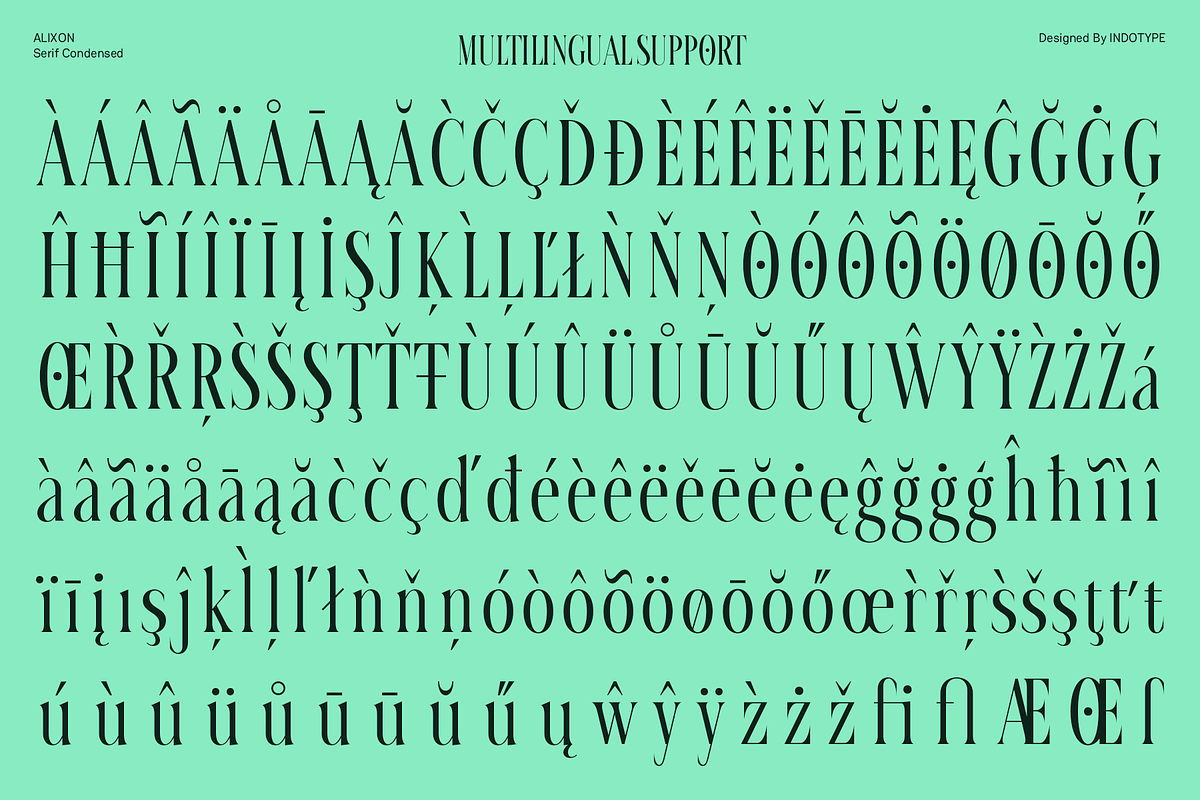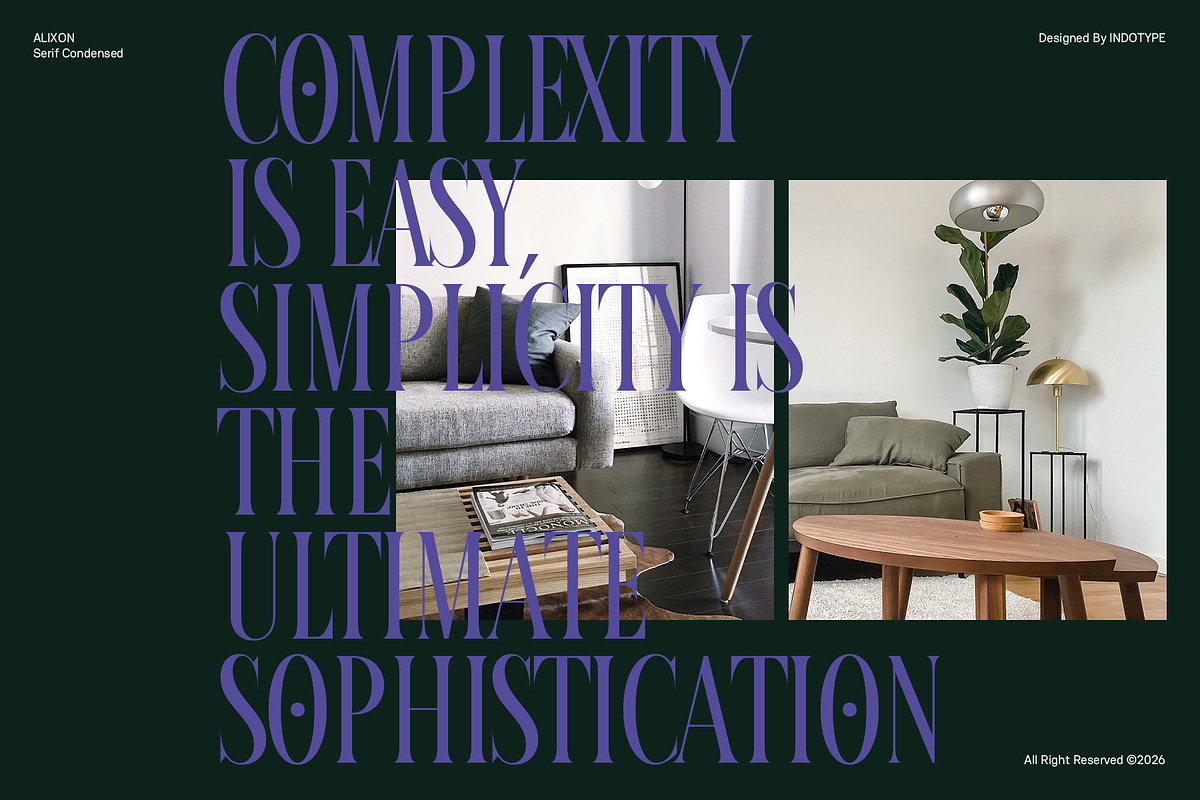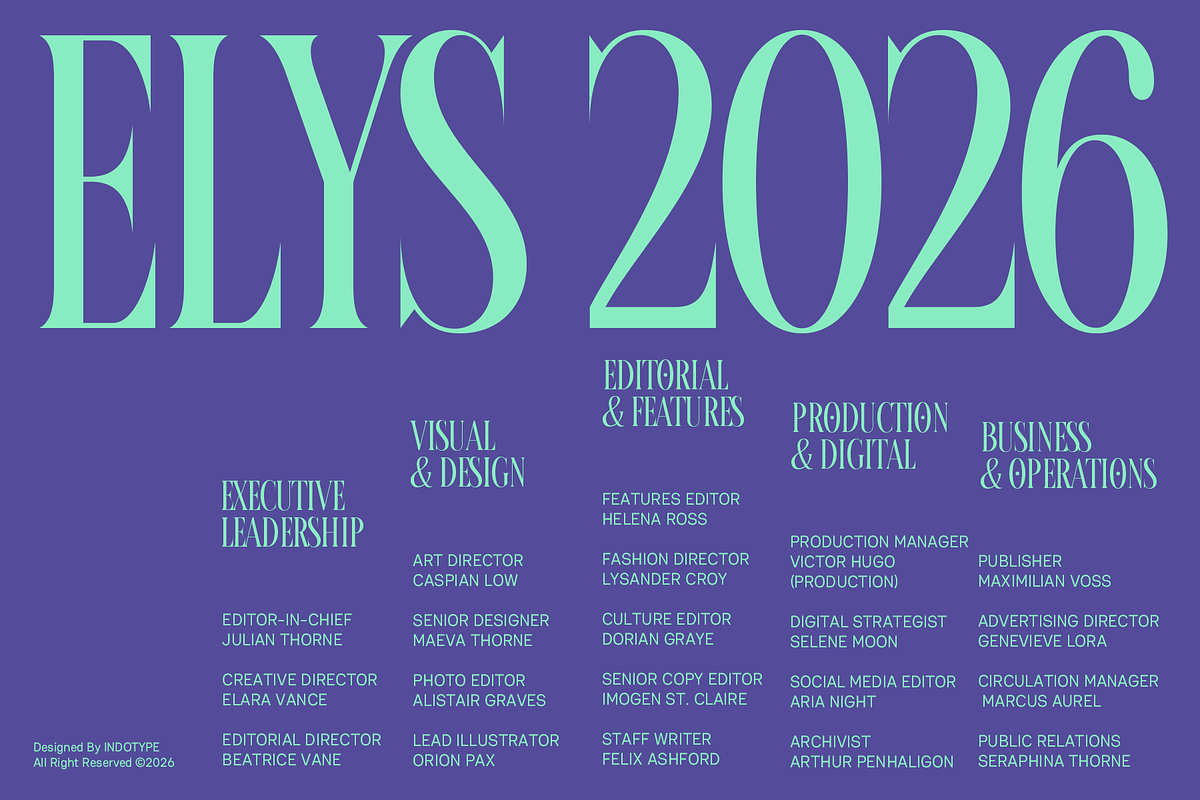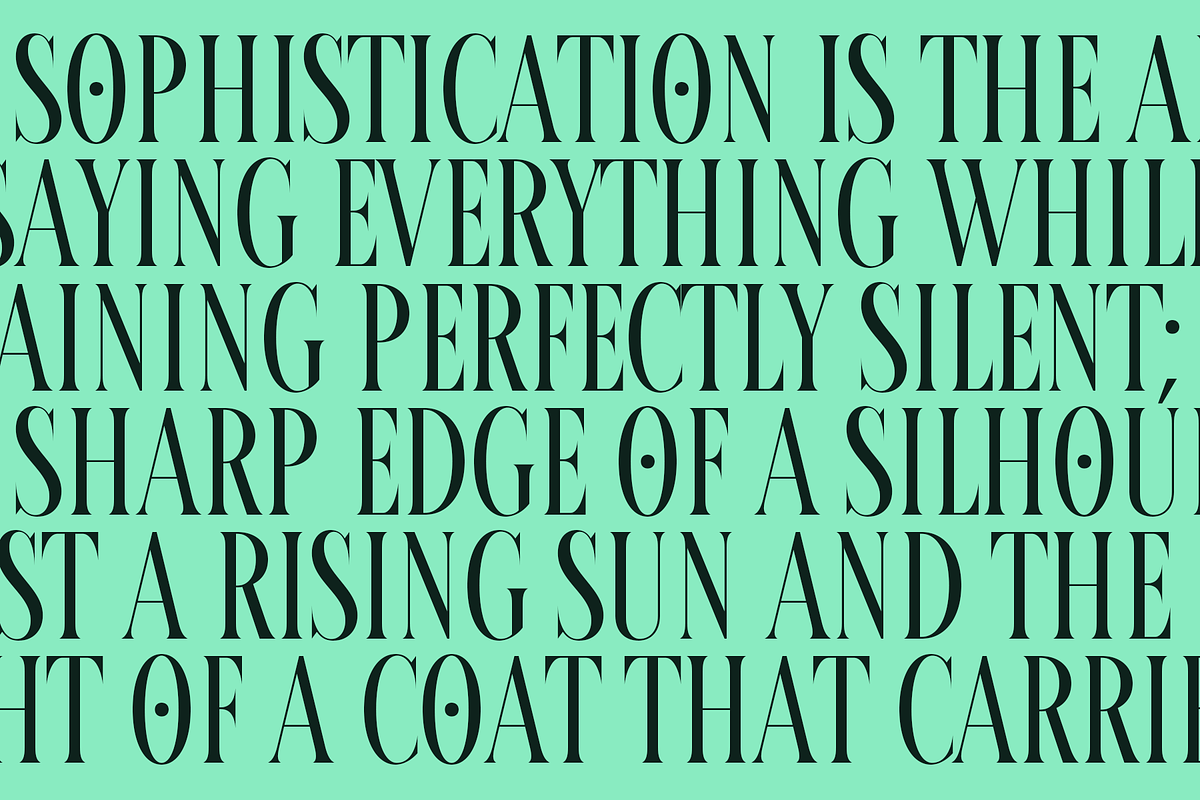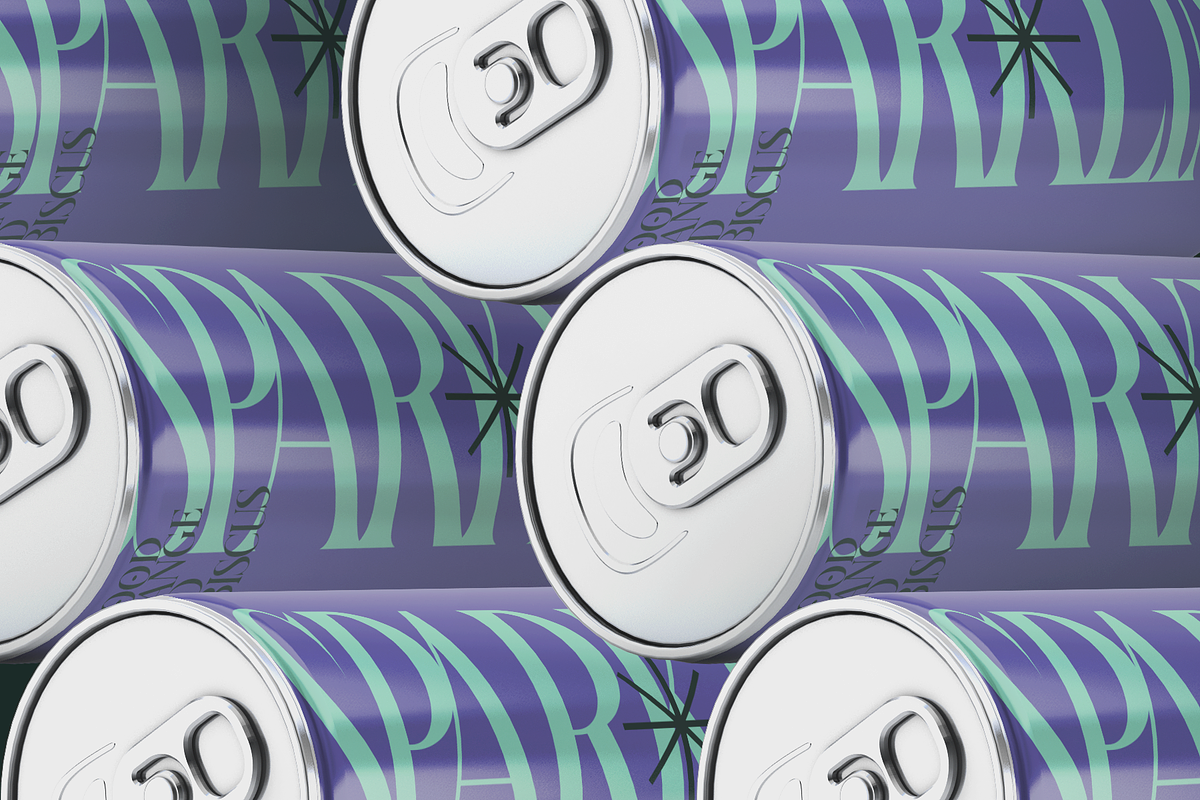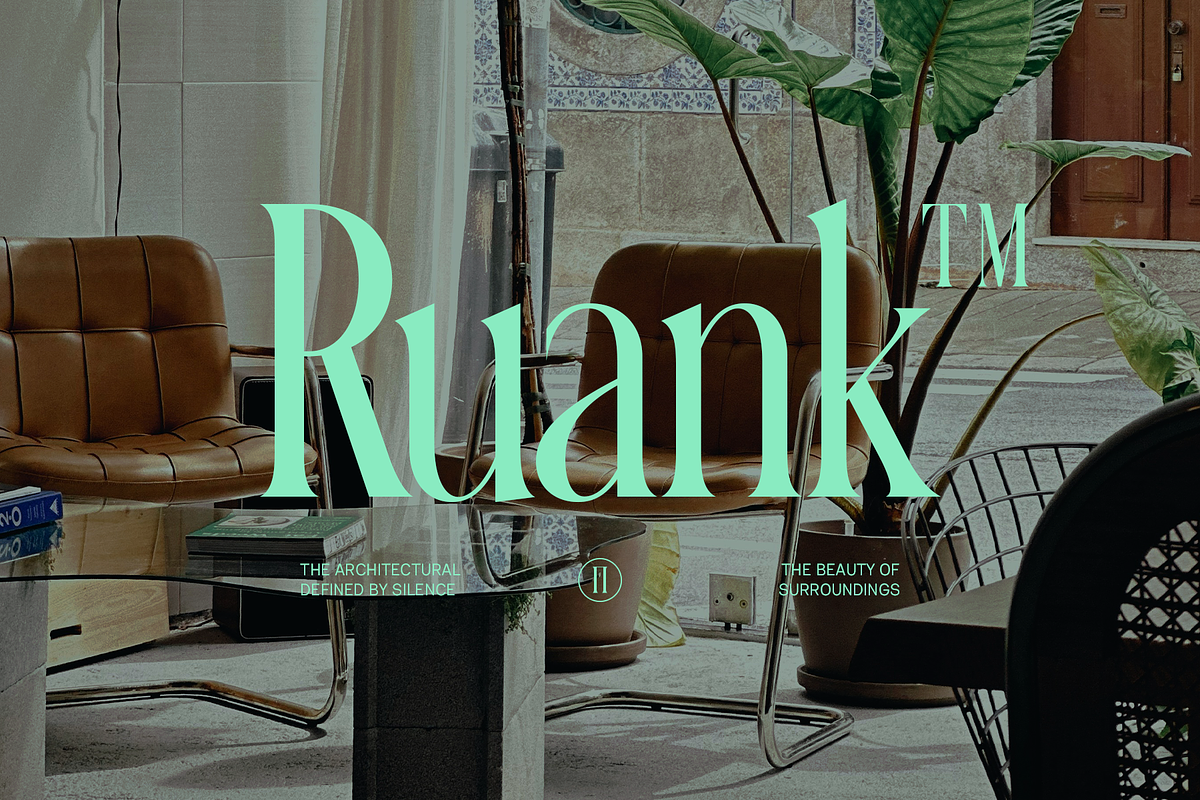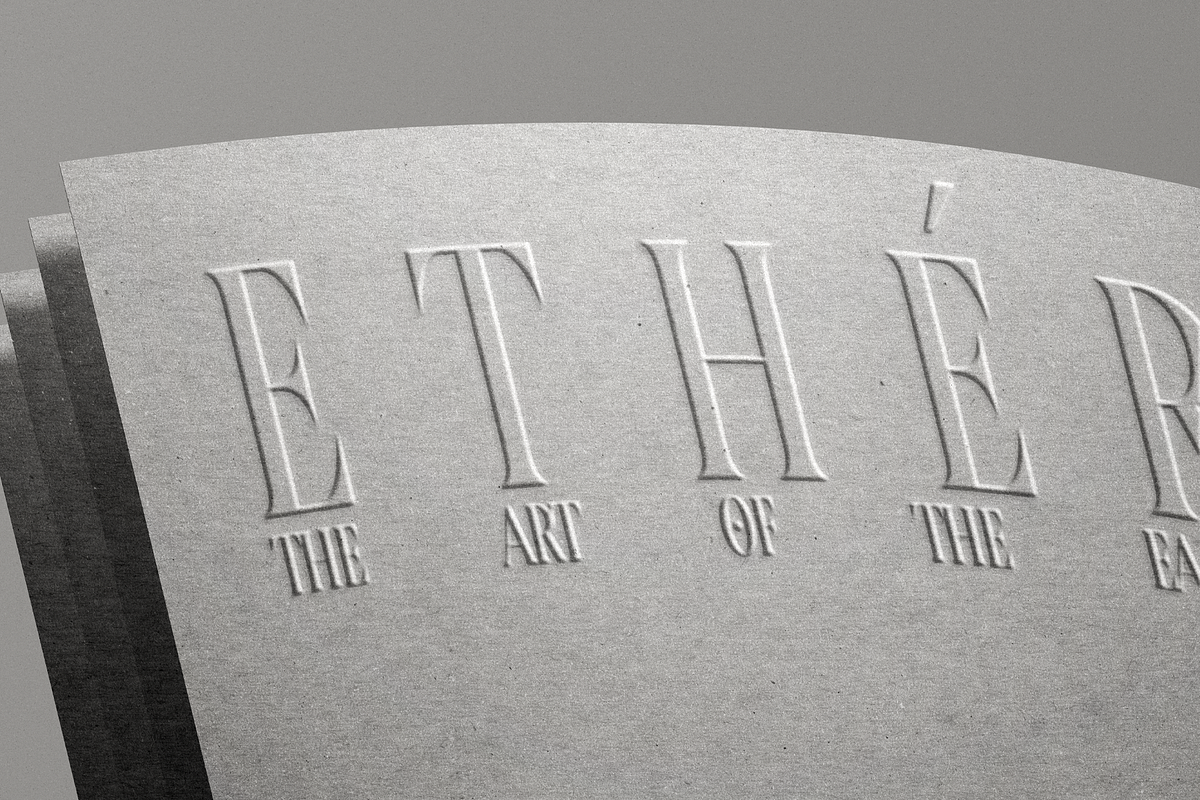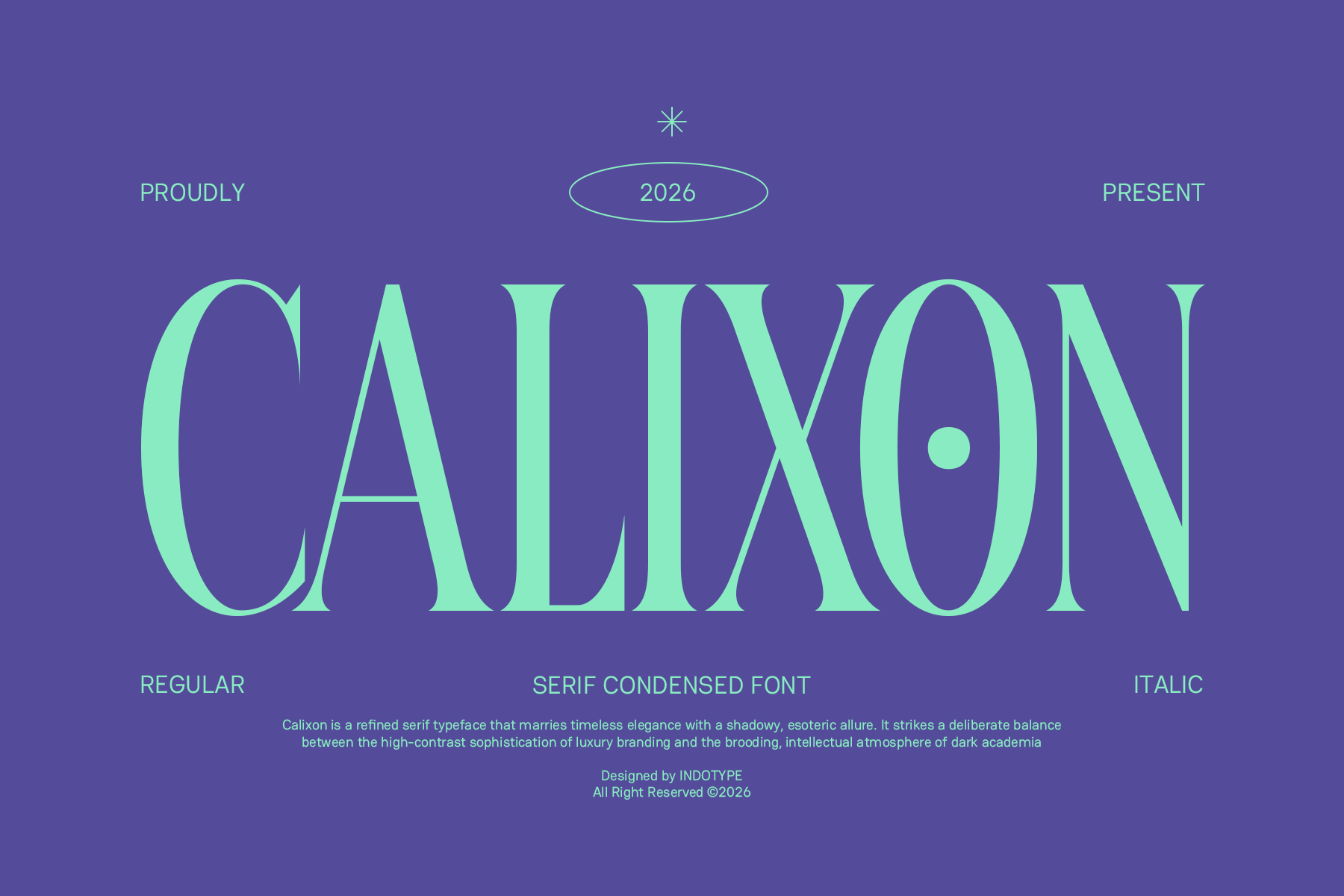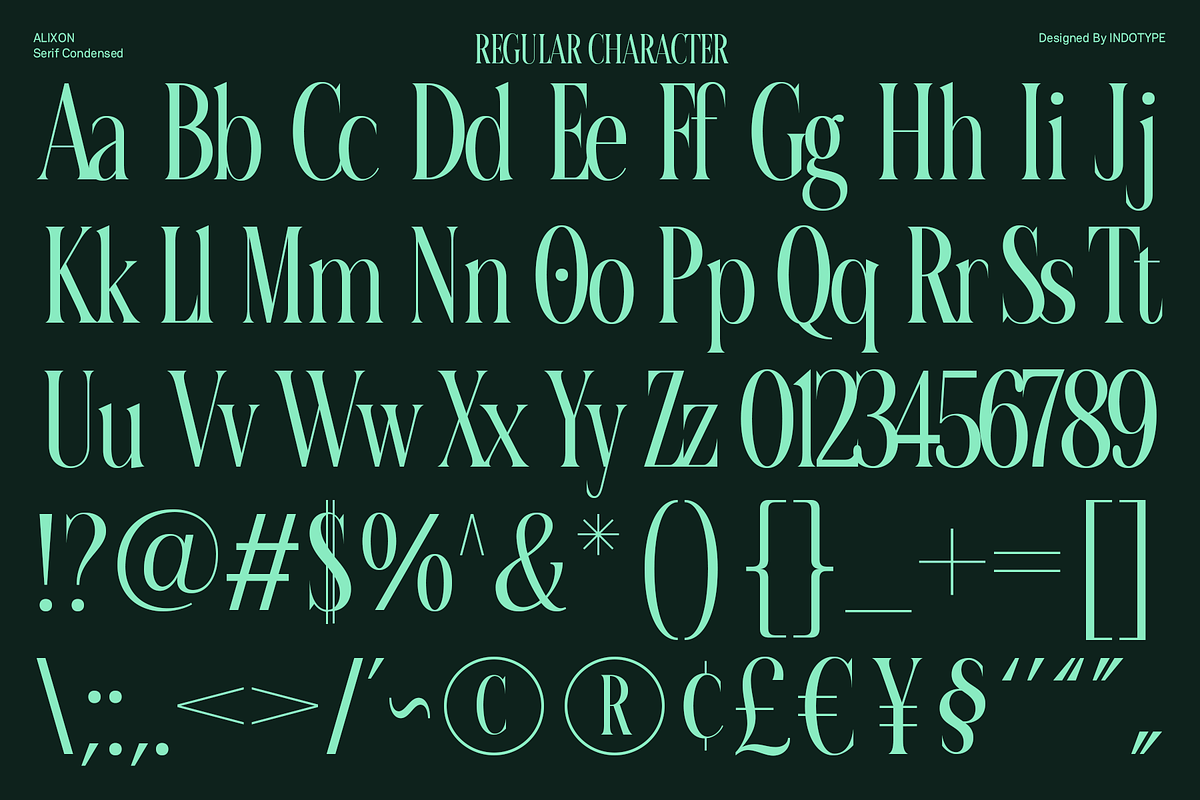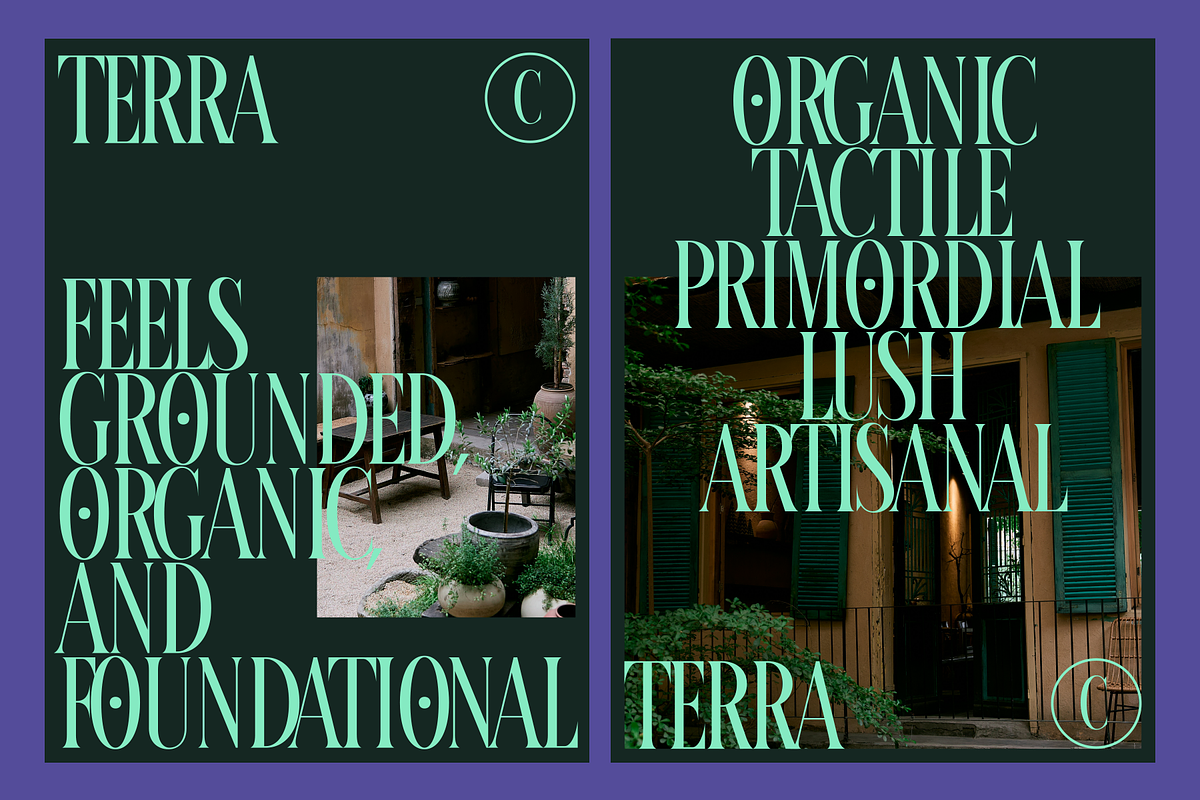
Calixon - Serif Condensed Font
Calixon is a meticulously crafted serif typeface that walks the delicate line between timeless elegance and shadowy, esoteric intrigue. Its condensed proportions and high-contrast strokes evoke the sophistication of luxury publishing, while its brooding, intellectual undertones channel the atmospheric depth of dark academia. Each letterform is deliberately balanced—refined enough for high-end branding, yet moody enough for scholarly, mysterious applications. Available in both Regular and Italic styles, Calixon brings a dual personality to your designs: polished and luxurious on the surface, with a whisper of something deeper beneath. It's the perfect choice for projects that demand both sophistication and soul—think literary journals, luxury brands with an edge, academic institutions, or any design seeking to capture the romance of knowledge and the allure of the unknown.
- Ideal for: Literary Journals & Book Covers, Dark Academia Branding, Luxury Publishing, Academic Institutions, Moody Editorial Design, Esoteric & Mystical Projects.
- Classification: Serif, Condensed, High-Contrast, Didone, Editorial.
- Attributes: Elegant, Intellectual, Brooding, Sophisticated, Mysterious, Timeless, Atmospheric.